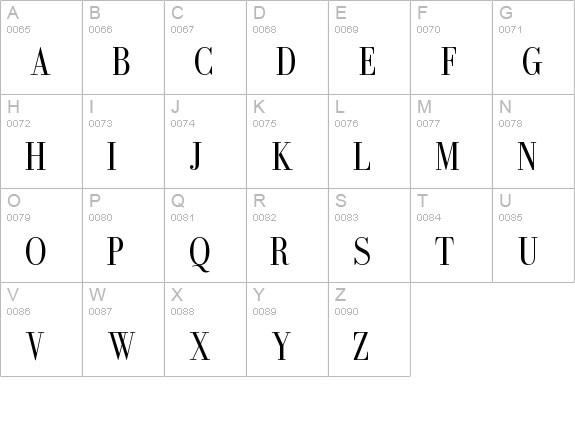
RecitalSSK Font Details
RecitalSSK font is a stunningly elegant typeface that exudes sophistication and grace. With its intricate curves and delicate strokes, this font is perfect for adding a touch of refinement to any project. Featuring a timeless design, RecitalSSK font is versatile and can be used for a variety of purposes. Whether you're designing a wedding invitation, creating a logo for a high-end brand, or simply want to add a touch of class to your personal correspondence, this font is sure to impress. One of the best things about RecitalSSK font is that it is completely free. That's right, you can download this exquisite typeface at absolutely no cost from FontsMarket.com. This means that you can add a touch of elegance to your designs without breaking the bank. Not only is RecitalSSK font visually stunning, but it is also highly legible. Its clean and crisp letterforms ensure that your message is conveyed clearly and effectively. Whether your text is small or large, this font will maintain its readability, making it a great choice for both print and digital media. With its timeless beauty and freely available download, RecitalSSK font is a must-have for any designer or creative individual. So why wait? Head over to FontsMarket.com and get your hands on this gorgeous typeface today. Elevate your designs and impress your audience with the sheer elegance of RecitalSSK font.